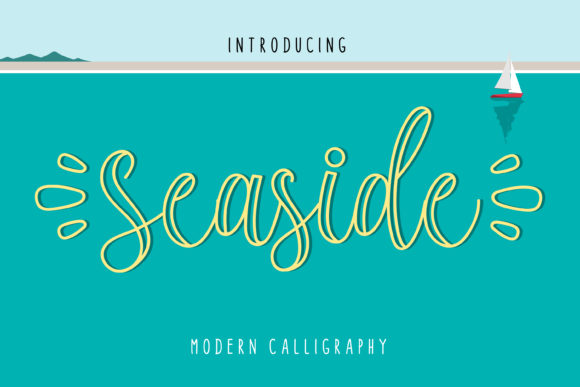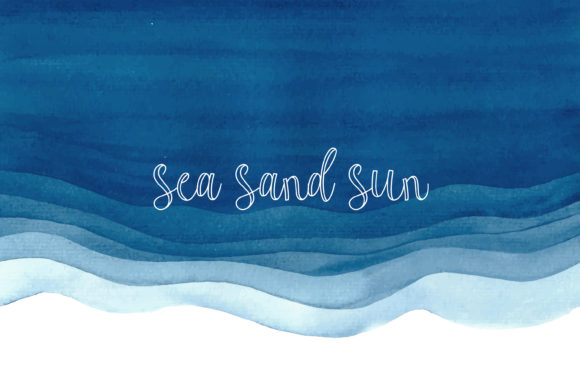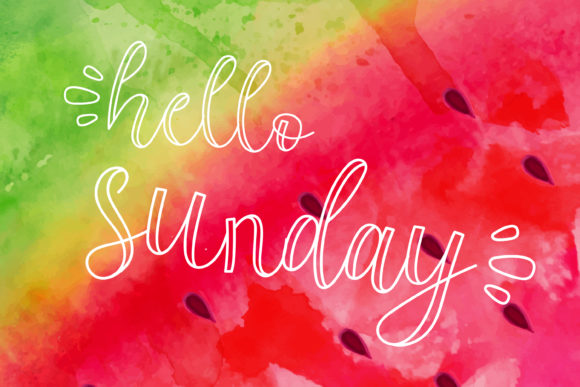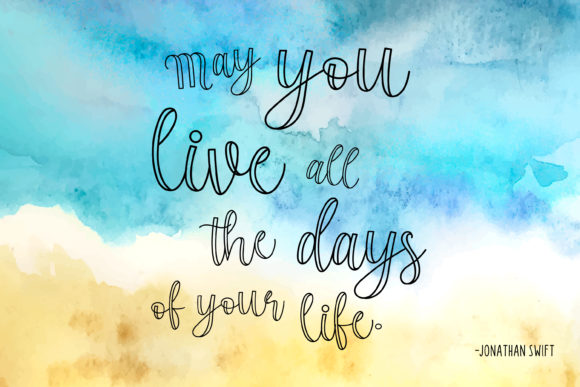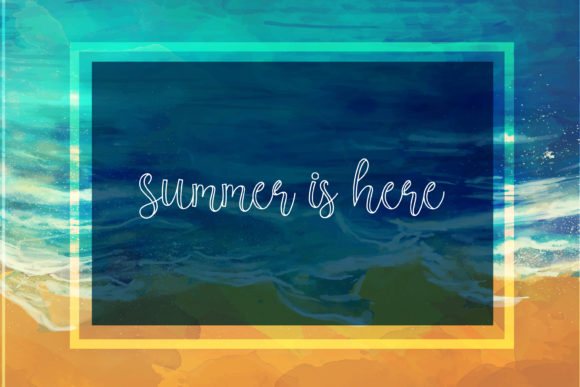
About Seaside Font
“Seaside” is a stunning and graceful handwritten font, known for its beauty and flowing style. With its versatility, it can be used in a wide range of design projects to create captivating and enchanting visuals. Here are some creative ideas to showcase the beauty of “Seaside” and make the most of its versatility:
1. Wedding Invitations: Design romantic and elegant wedding invitations using the “Seaside” font to evoke a sense of grace and charm.
2. Stationery Art: Create beautiful and captivating stationary art with the font, adding a touch of whimsy and sophistication to your designs.
3. Social Media Posts: Use the font for eye-catching and engaging social media posts to capture attention and convey your brand’s personality.
4. Quotes and Typography Art: Design typography art featuring inspiring quotes and phrases, highlighting the font’s flowing and graceful characters.
5. Greeting Cards: Craft heartfelt and artistic greeting cards for special occasions, showcasing the font’s beauty and elegance.
6. Blog Graphics: Enhance your blog posts and graphics with the “Seaside” font to create a cohesive and visually appealing online presence.
7. Logo Design: Create unique and memorable logos with the font, adding a touch of handmade charm and sophistication.
8. Branding Materials: Use the font in various branding materials, such as business cards, letterheads, and email signatures, to reinforce your brand’s identity.
9. Art Prints: Design captivating art prints using the font, perfect for home decor or as gifts for art lovers.
10. Packaging Design: Apply the font to product packaging to create a sense of elegance and allure, ideal for artisanal and handcrafted products.
11. Magazine Layouts: Use the font in magazine layouts and editorial designs to add a touch of creativity and personality.
12. Event Invitations: Design invitations for special events and gatherings with the font’s flowing and enchanting characters.
The “Seaside” font’s beauty and versatile style make it a captivating choice for a wide variety of design projects. Its flowing and graceful nature adds an element of charm and sophistication to any visual composition. Embrace the elegance of “Seaside” and let it inspire you to create stunning and captivating designs across various platforms and mediums.